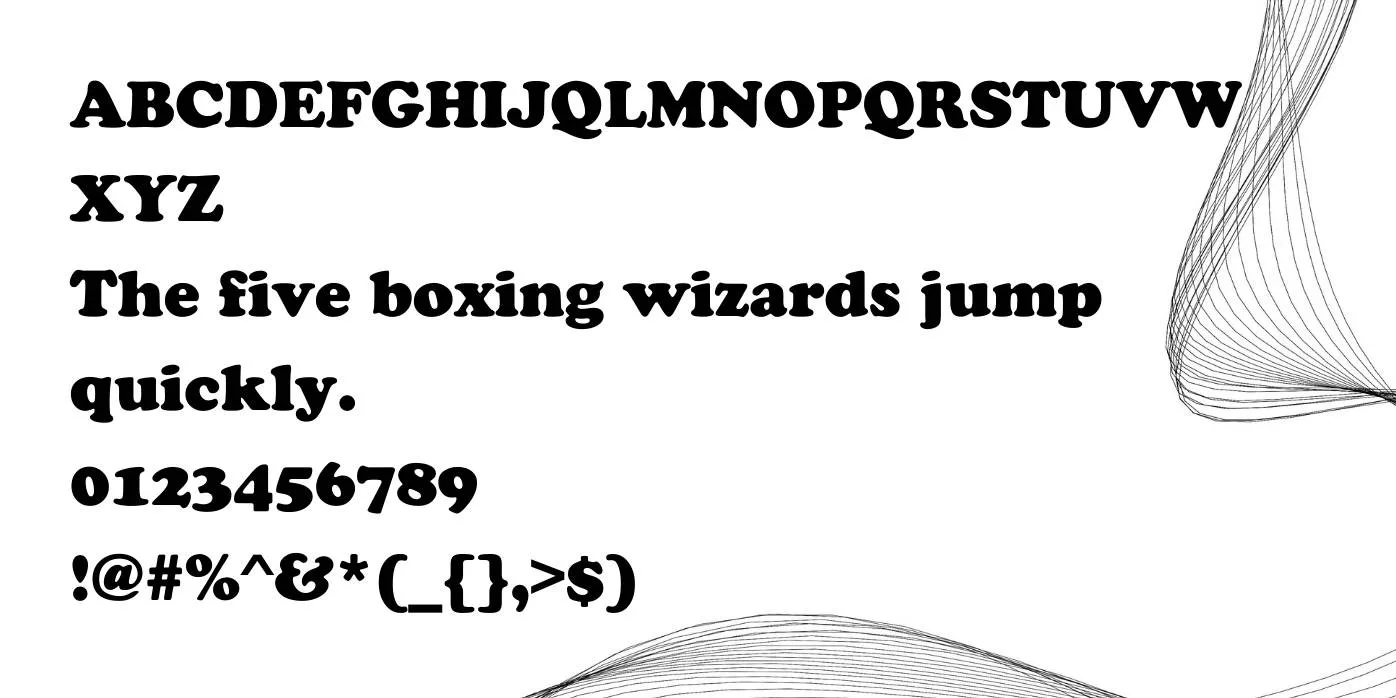
Cooper Black Font
Cooper Black Font is one of the main fonts in Windows. This typeface is famous for its copy-paste function and also for its use in commercials. The designer of this beautiful typeface is Oswald Bruce Cooper. Its characters have beautiful look with smooth edges and an elegant typography style.
It has only regular glyphs includes Uppercase and Lowercase Letters, Numbers and Numerals, and efficient symbols, etc. It supports many international languages also. In addition, comic papyrus font is an all caps condensed rounded makes cute logo fonts, however, it’s also pinnacle-notch for packaging, headline, or editorial format. It is the adobe original font that you may download from our website easily.